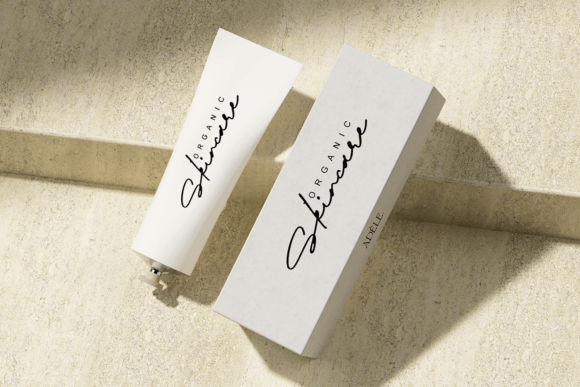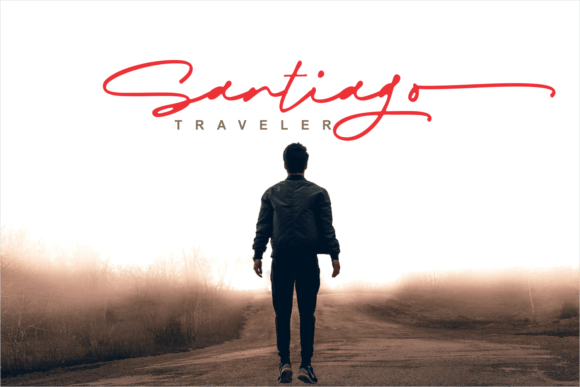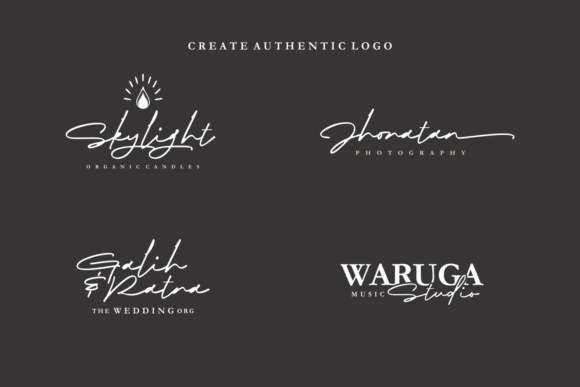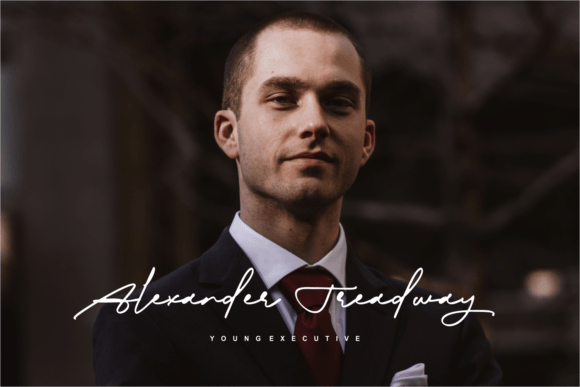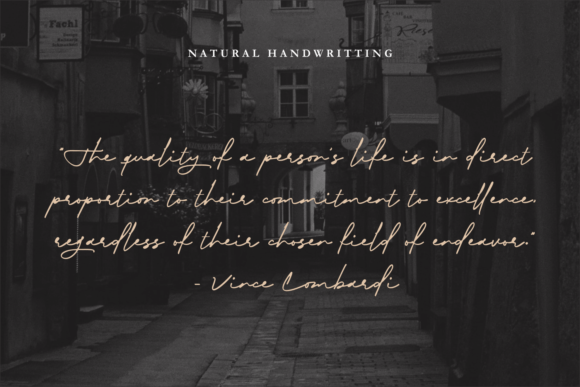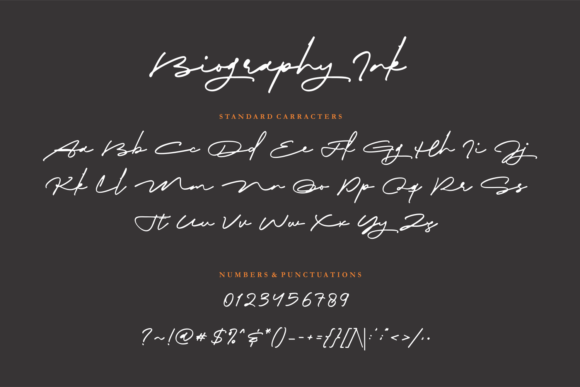
Introduction to Biography Ink Font
Biography Ink is perfect for branding projects, logo, wedding designs, social media posts, advertisements, product packaging, product designs, label, photography, watermark, invitation, stationery and any projects that need handwriting taste.
Biography Ink is perfect for branding projects, logo, wedding designs, social media posts, advertisements, product packaging, product designs, label, photography, watermark, invitation, stationery and
Key Features of Biography Ink Font
Why Choose Biography Ink Font?
Biography Ink Font offers exceptional quality and versatility, making it a valuable addition to your design toolkit. Whether you’re creating for personal projects or commercial use, Biography Ink Font delivers professional results.